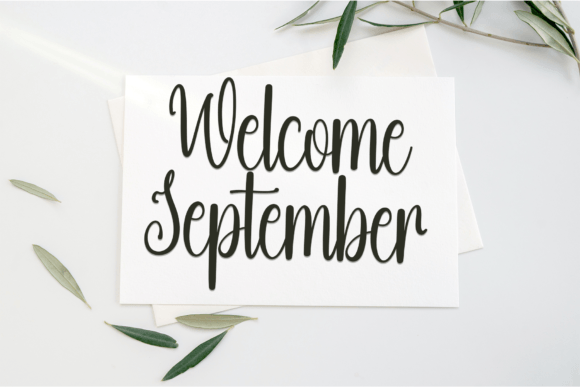
Happy Birthday Font
Happy Birthday is a stylish handwritten font with a contemporary atmosphere and impeccable form, inspired by a timeless classic calligraphy. Balanced and varied, this font was designed to enhance the beauty of your projects.